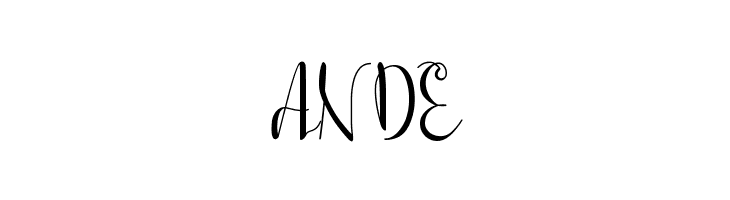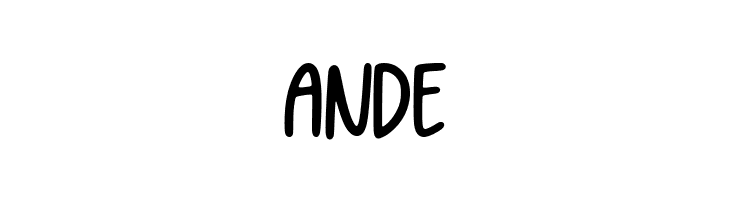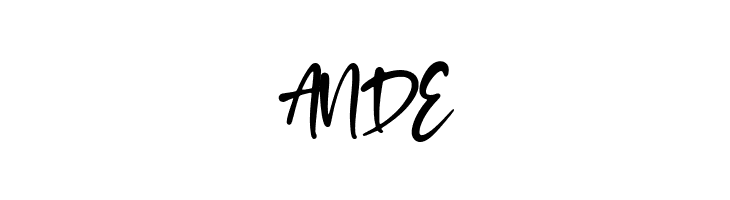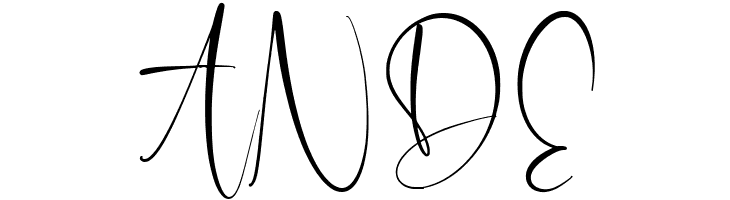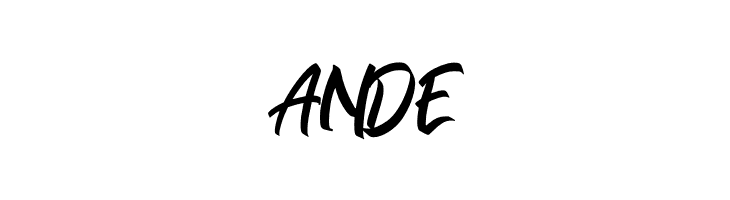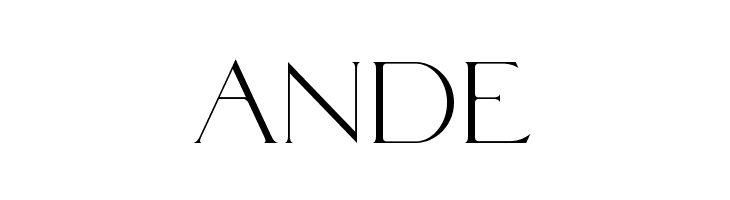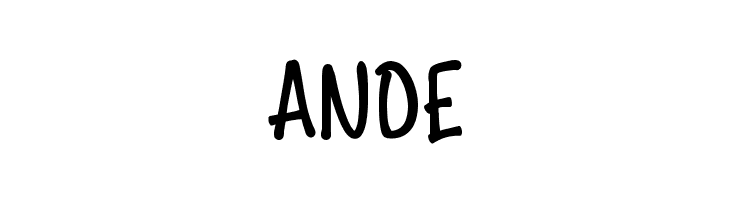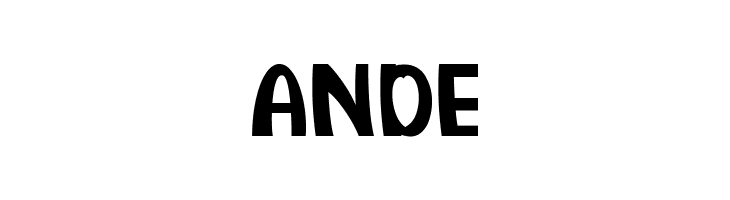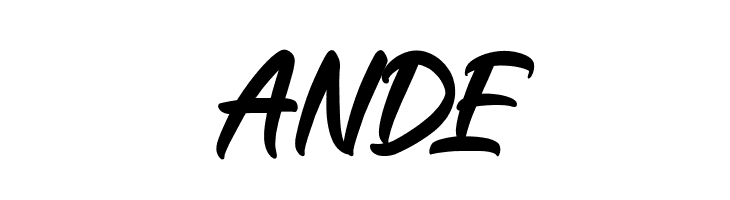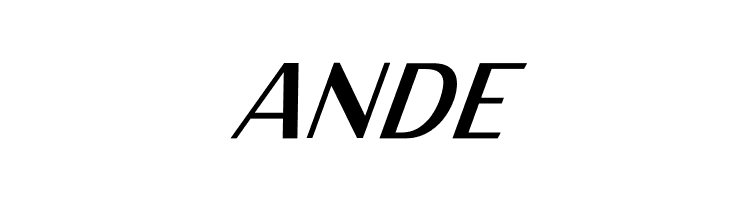
An elegant italic font with smooth, flowing lines and moderate contrast.
A modern, oblique font with consistent stroke width and a sleek appearance.
An elegant script font with flowing, cursive characters and intricate flourishes.
A modern, high-contrast font with elegant, sophisticated characters.
An elegant, flowing script font with smooth, connected strokes.
A smooth, monoline script font with elegant, connected characters.
A bold, dynamic script font with fluid, energetic strokes.
A lively and expressive script font with bold, flowing letterforms.
A playful, bold handwritten font with a casual and friendly style.
A playful, whimsical handwritten font with flowing strokes and unique flourishes.
A playful, hand-drawn font with a whimsical and informal style.
A flowing, elegant handwritten font with artistic curves and loops.
A playful, handwritten font with smooth curves and a casual style.
A dynamic, handwritten font with fluid strokes and artistic flair.
A bold, cursive script font with fluid, connected characters.
A bold, dynamic script font with fluid, connected letterforms.
A bold, slanted font with a brush-like texture and dynamic style.
A bold, dynamic script font with high contrast and fluid, connected characters.
A playful, bold font with rounded, whimsical characters.
A bold, brush script font with dynamic, fluid strokes and a modern, edgy aesthetic.
A bold, expressive script font with a handwritten style.
A bold, expressive handwritten font with fluid strokes and dynamic energy.
A modern, geometric outline font with bold, rounded characters.
A bold, expressive script font with a handwritten style.
A bold, brush-style handwritten font with dynamic and fluid characteristics.
A playful, bold, and hand-drawn font with a bubbly style.
An elegant, flowing script font with a romantic and sophisticated style.
A graceful and elegant cursive script font with flowing lines and playful elements.
A whimsical, cursive font with elegant curves and artistic flair.
Ornate monogram font with integrated Christmas illustrations.
Ornate, heart-themed script with festive and romantic flair.